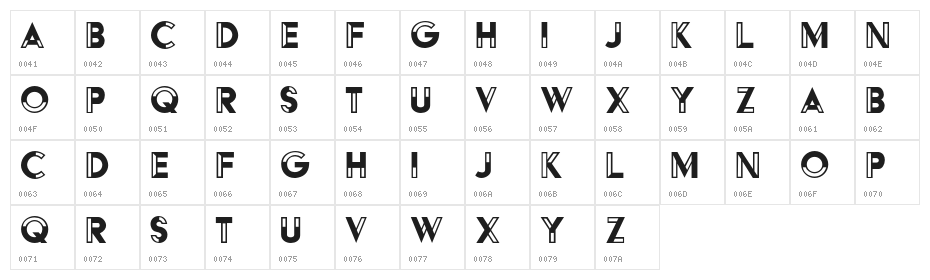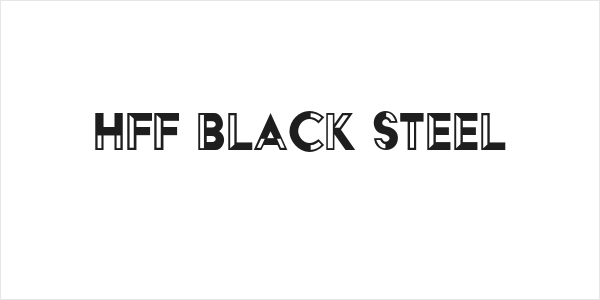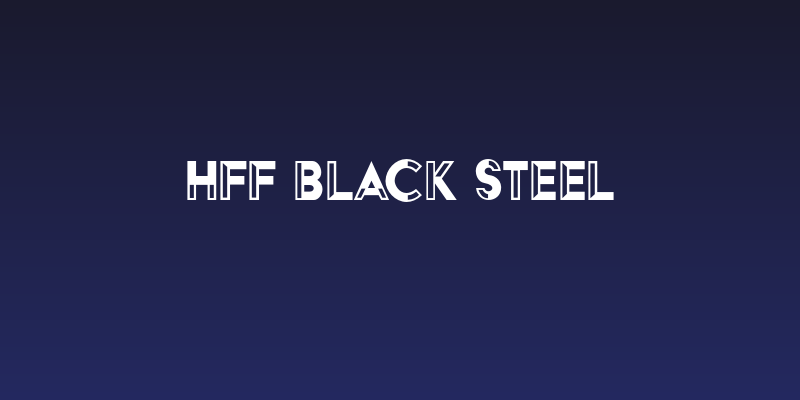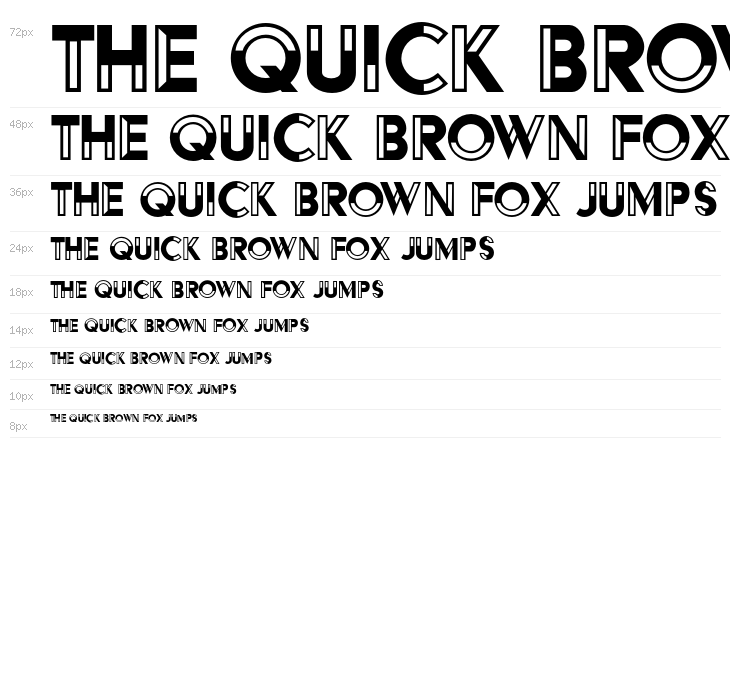
HFF Black Steel Font
HFF Black Steel Description
This font features a bold and striking design with a unique blend of solid and outlined elements. The uppercase letters are characterized by a strong geometric structure, with some letters incorporating a dual-tone effect that adds depth and dimension. The font's style is reminiscent of industrial and mechanical themes, making it ideal for projects that require a robust and impactful visual presence. The clean lines and sharp angles contribute to its modern and edgy appearance, while the alternating filled and hollow sections create a dynamic visual rhythm.
| Proposed Projects | Ideal for branding, posters, and signage that require a strong and modern aesthetic. |